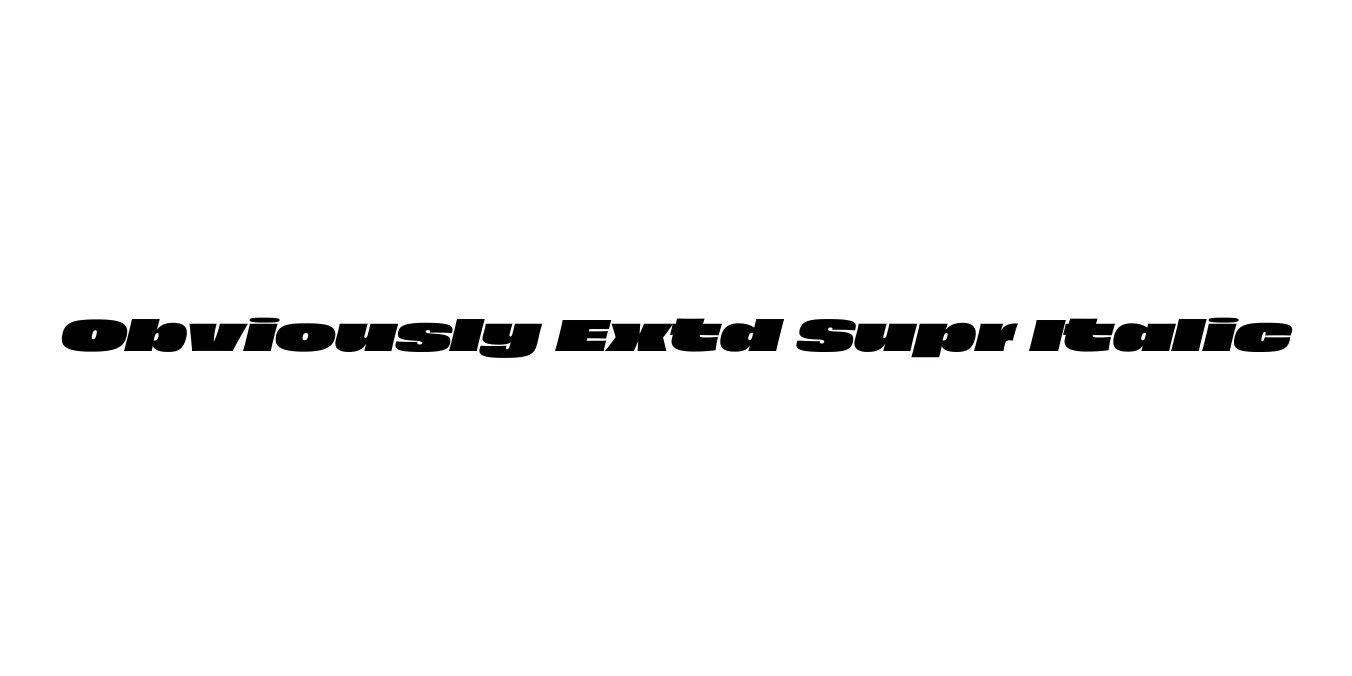
Obviously Extd Supr Italic
Designed by James Edmondson
Obviously Extd Supr Italic is a high-energy typeface designed by James Edmondson and released through his foundry, OH no Type Co. This specific variant is part of the expansive Obviously family, which was built to explore the extremes of width and weight. The 'Extended' proportions provide a massive horizontal presence, while the 'Super' weight ensures maximum visual impact. It reflects a modern interpretation of mid-century industrial sans-serifs, updated with a playful yet brutalist sensibility.
The Italic version of this extended super-weight is not merely a slanted companion but a carefully engineered oblique that emphasizes speed and momentum. It is frequently utilized in editorial environments and sports branding to convey a sense of power and forward motion. Because of its extreme width and heavy stroke, it excels in display settings where it can dominate the layout, making it a favorite for designers looking for a typeface that refuses to be ignored.
Obviously Extd Supr Italic Best Uses
Creating powerful, wide-format logos and visual identities.
Designing dynamic, high-speed social media assets and jersey prints.
Massive pull-quotes and headlines that require a commanding presence.
High-impact outdoor signage and digital banner ads.